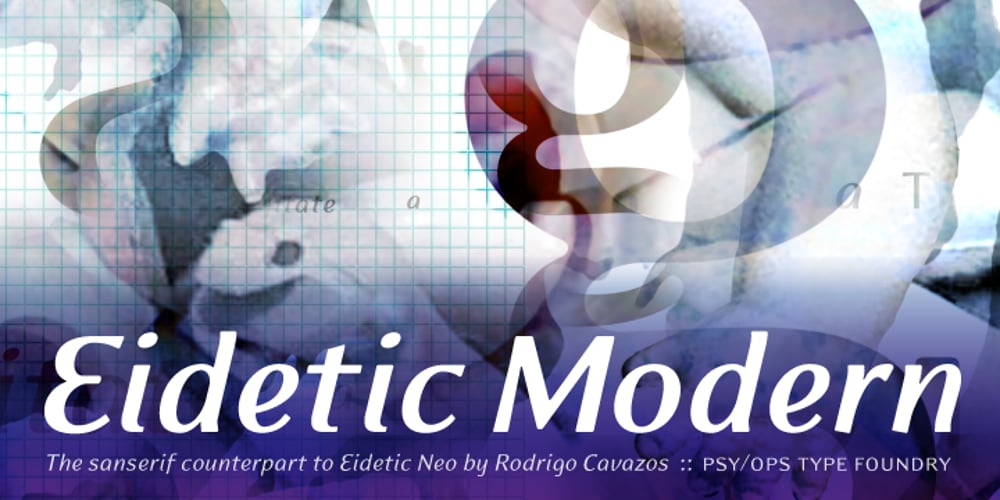
Eidetic Modern Font Family was designed by published by PSY/OPS. Eidetic Modern contains 5 styles and family package options. Eidetic Modern is the sanserif counterpart to Eidetic Neo. Both families were developed in tandem, however the Modern was the first to be published by PSY/OPS [1997]. Eidetic Modern’s features — gently tapered stems, buffed corners and junctures, vertical stress, non-classical proportions — combine to create a unique, contemporary humanist sans.